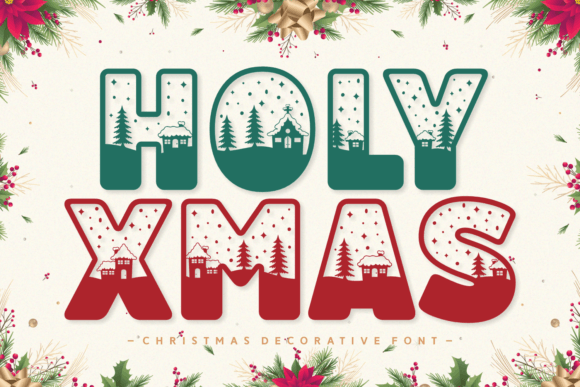
Introducing Holy Xmas Font - the ultimate choice for all your Christmas design needs! Created by the talented Rizkky from 7NTypes, this font is guaranteed to bring a touch of joy and festivity to your projects. With its fun and unique style, Holy Xmas is the perfect companion for creating eye-catching Christmas cards, invitations, posters, and more!
Get ready to be captivated by the magic of Holy Xmas Font. Its decorative nature instantly adds a playful and cheerful vibe to any design. Whether you're crafting a personalized holiday greeting or designing a stunning party invitation, this font will help you stand out from the crowd. Imagine the smiles on your loved ones' faces when they receive a beautifully designed card featuring Holy Xmas Font!
This font is a true game-changer for the holiday season. Its versatility allows you to experiment with various design elements, making each project truly one-of-a-kind. The possibilities are endless! Holy Xmas Font is not just limited to Christmas cards; it can also be used to create stunning winter-themed logos, website banners, social media graphics, and more. Let your creativity soar and watch as your designs come to life with the magic of Holy Xmas!
What sets Holy Xmas Font apart is its ability to evoke emotions and create a nostalgic feeling. The carefully crafted letters transport you back to childhood memories of cozying up by the fireplace, sipping hot cocoa, and eagerly awaiting Santa's arrival. This font truly captures the essence of the holiday spirit and will make your designs unforgettable.
With its wide range of characters and ligatures, Holy Xmas Font offers endless possibilities for customization. Add swirls, flourishes, and decorative elements effortlessly, giving your designs an extra touch of elegance and sophistication. Whether you prefer a bold and striking look or a more delicate and whimsical style, this font has got you covered.